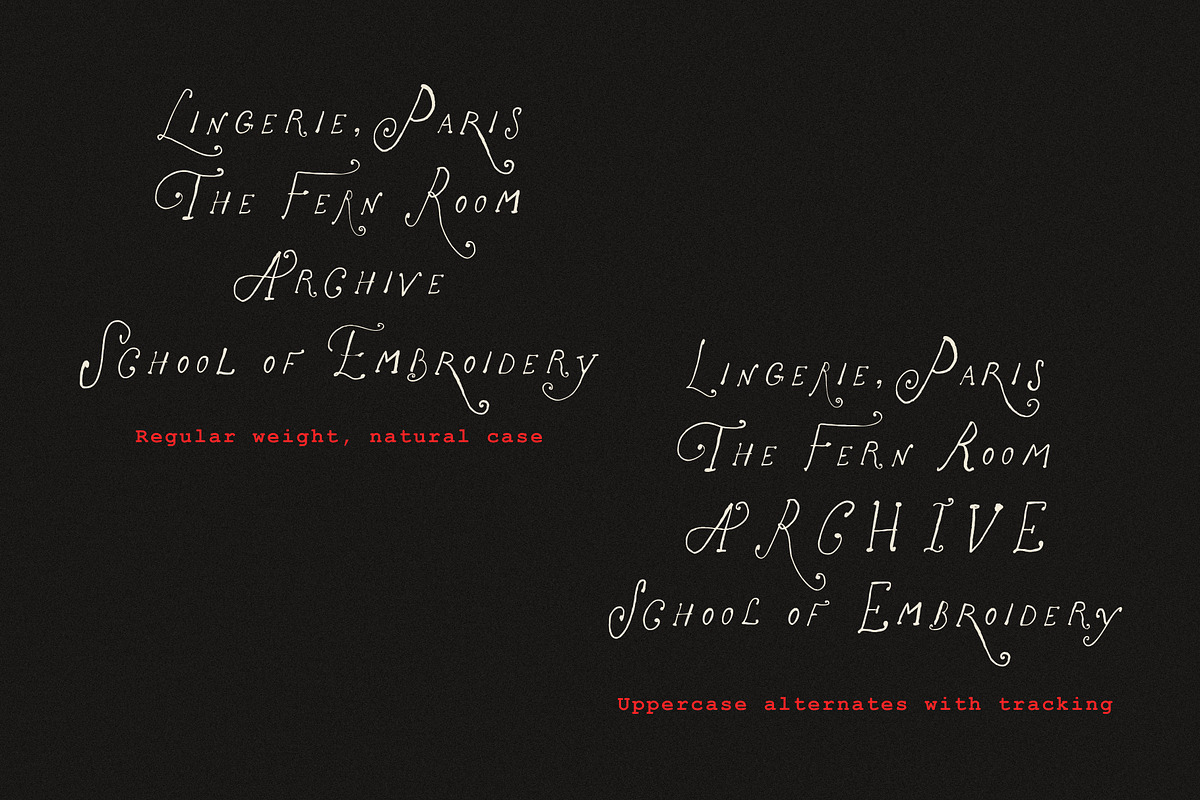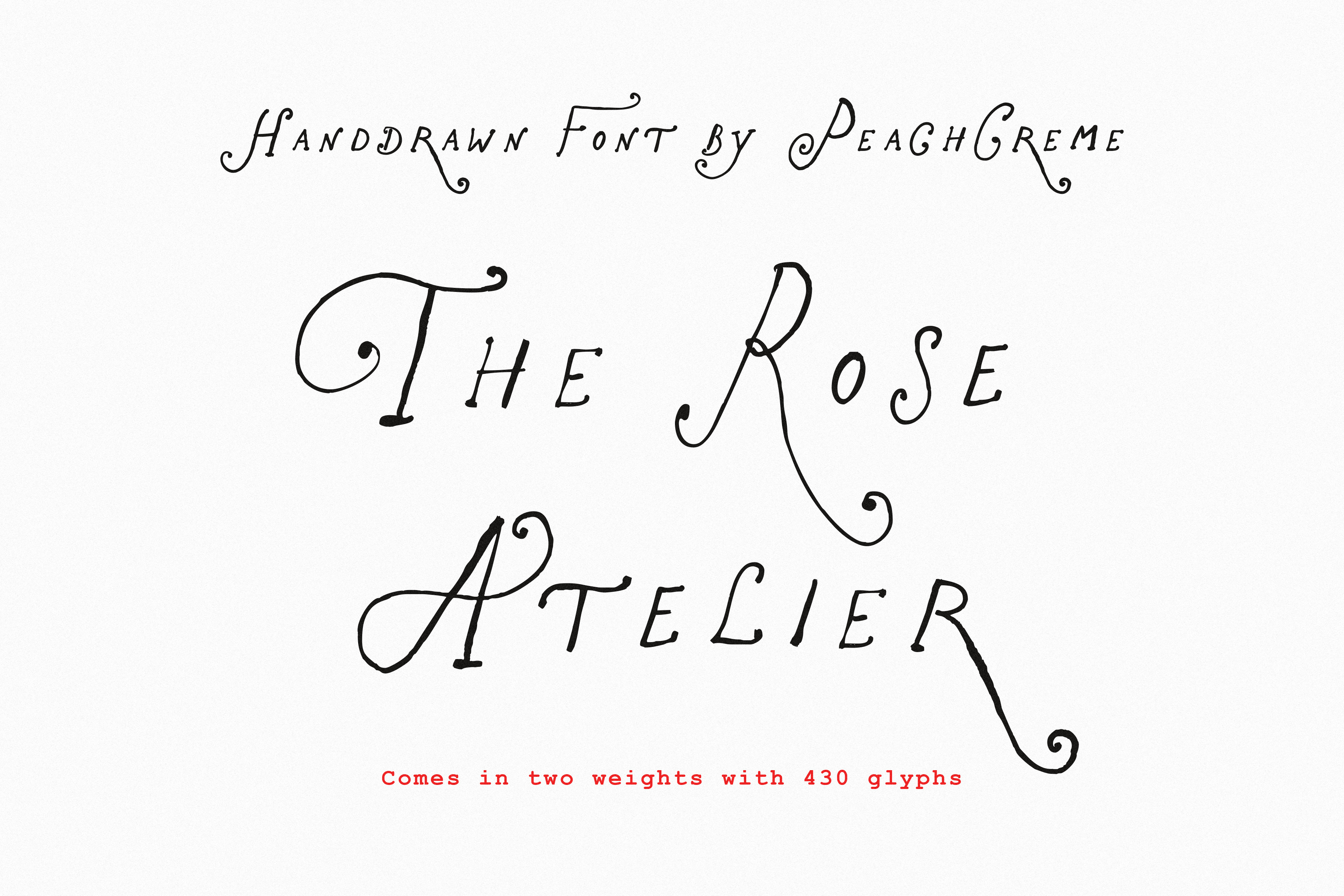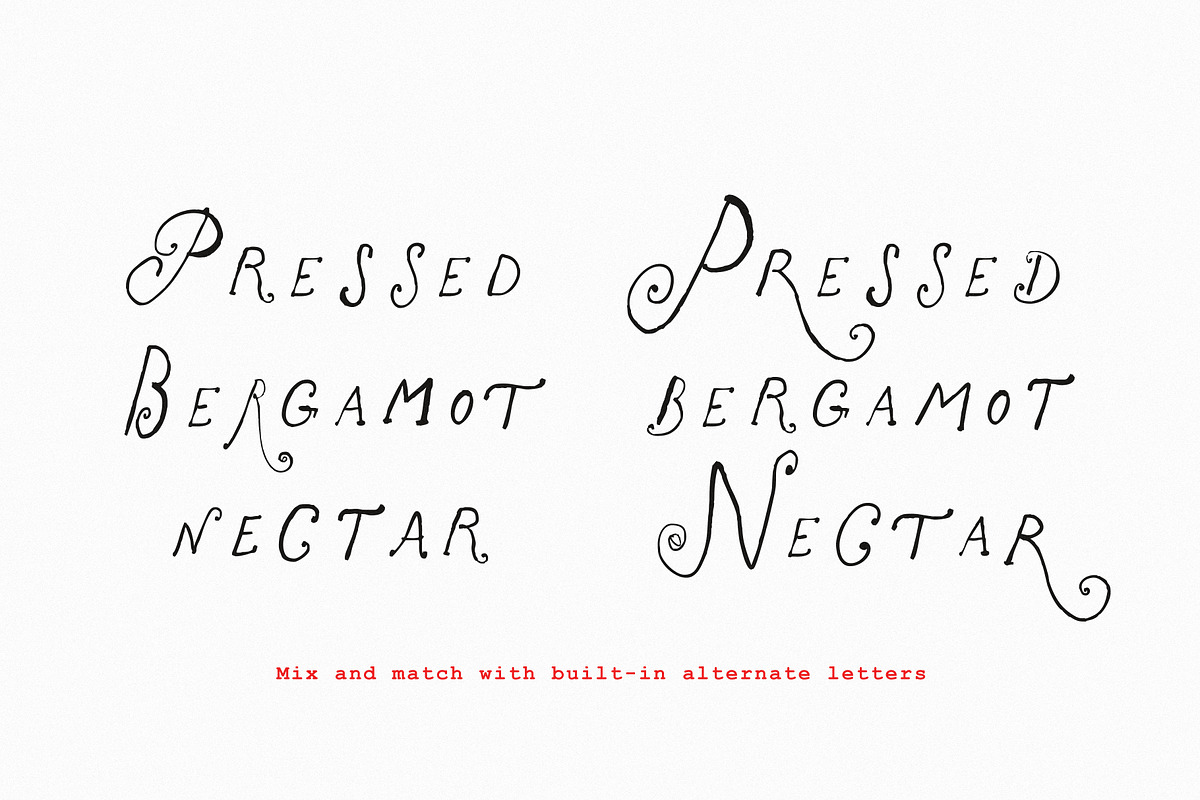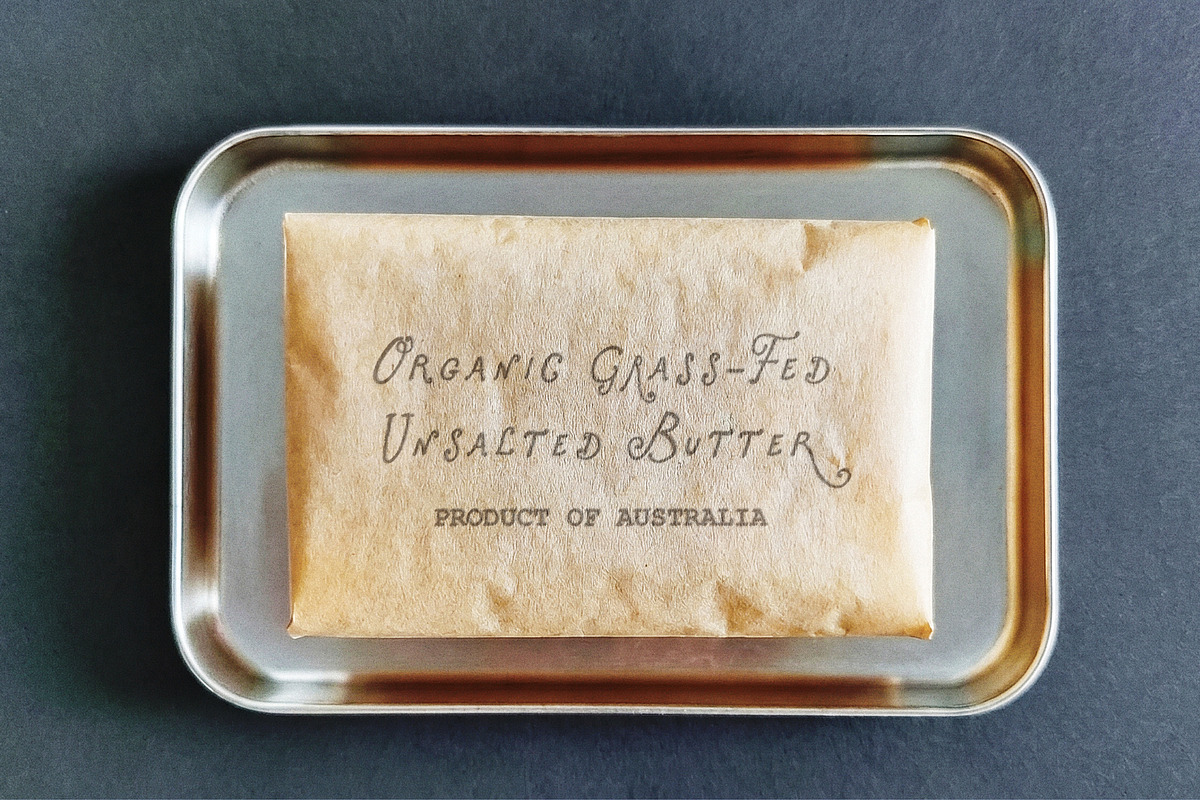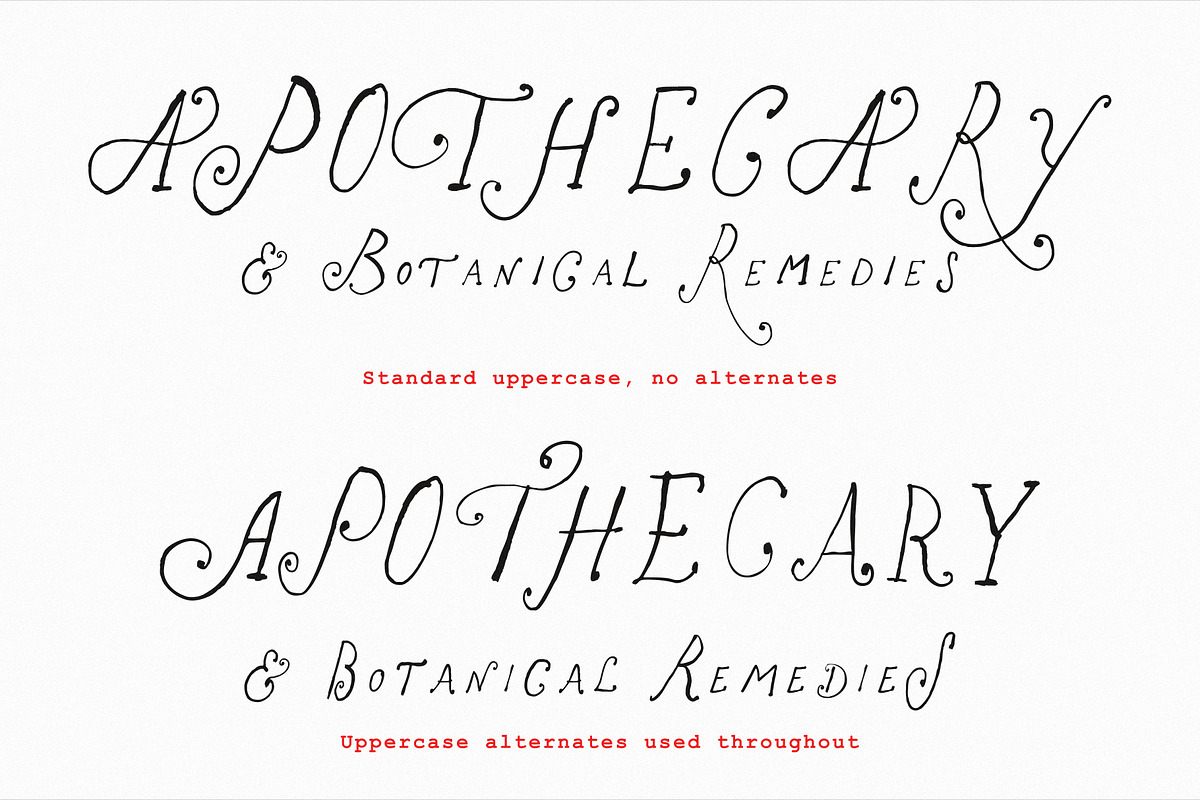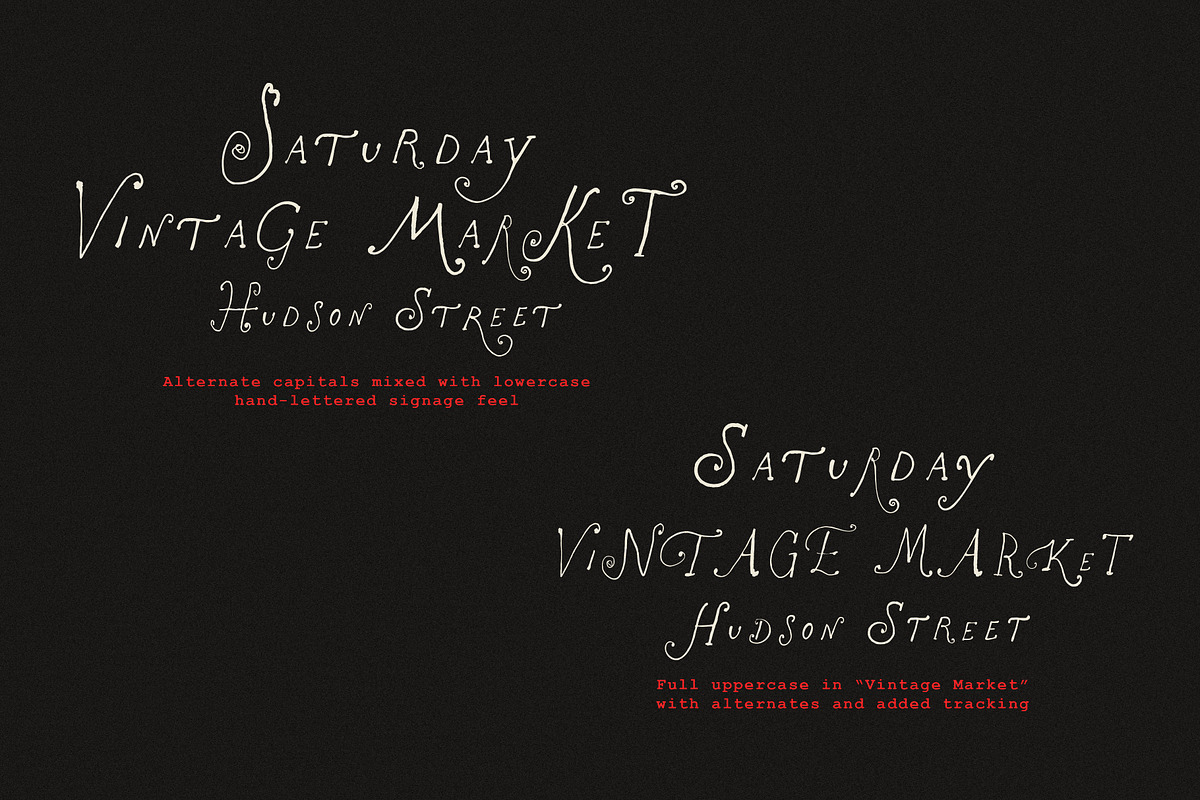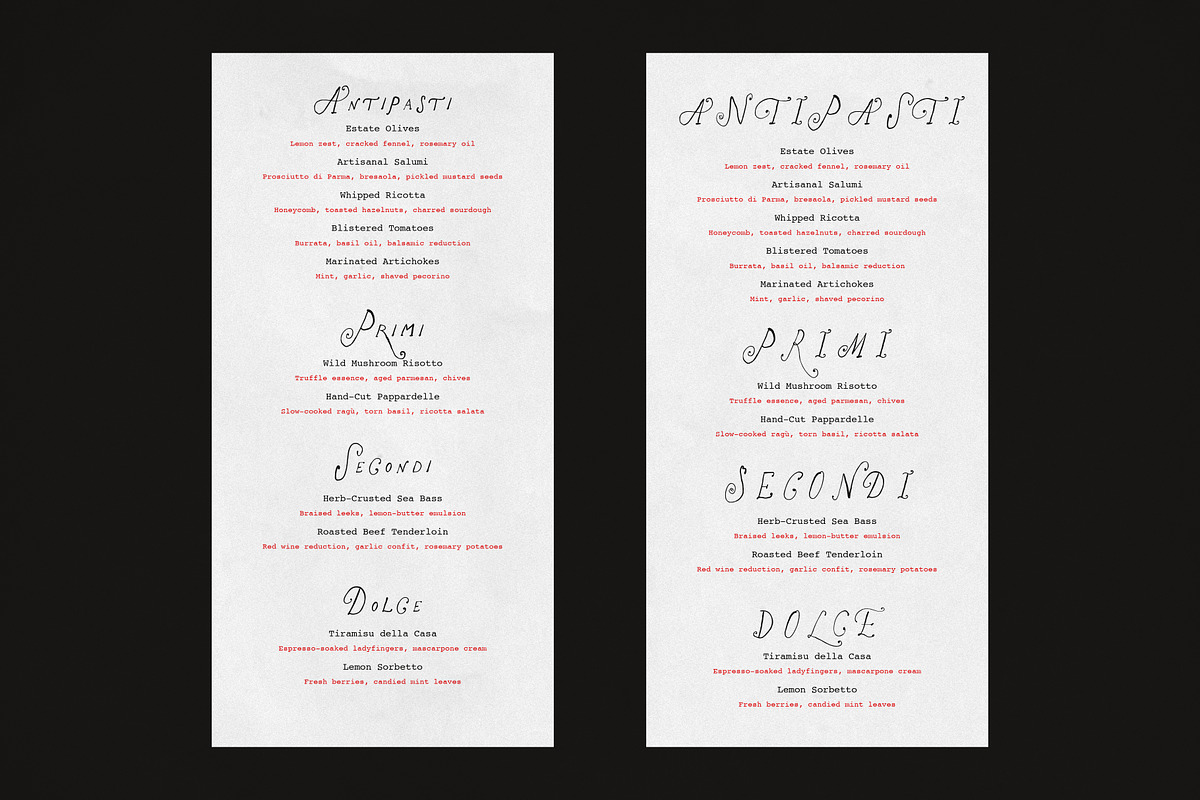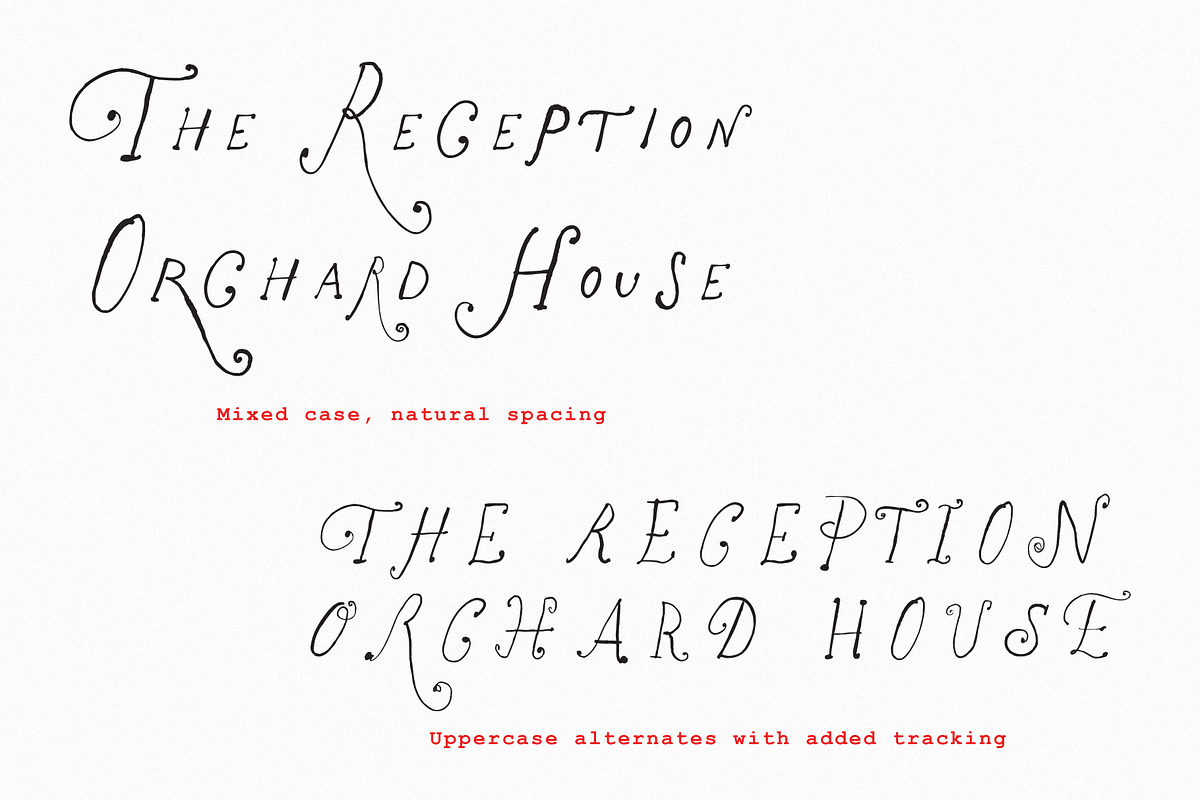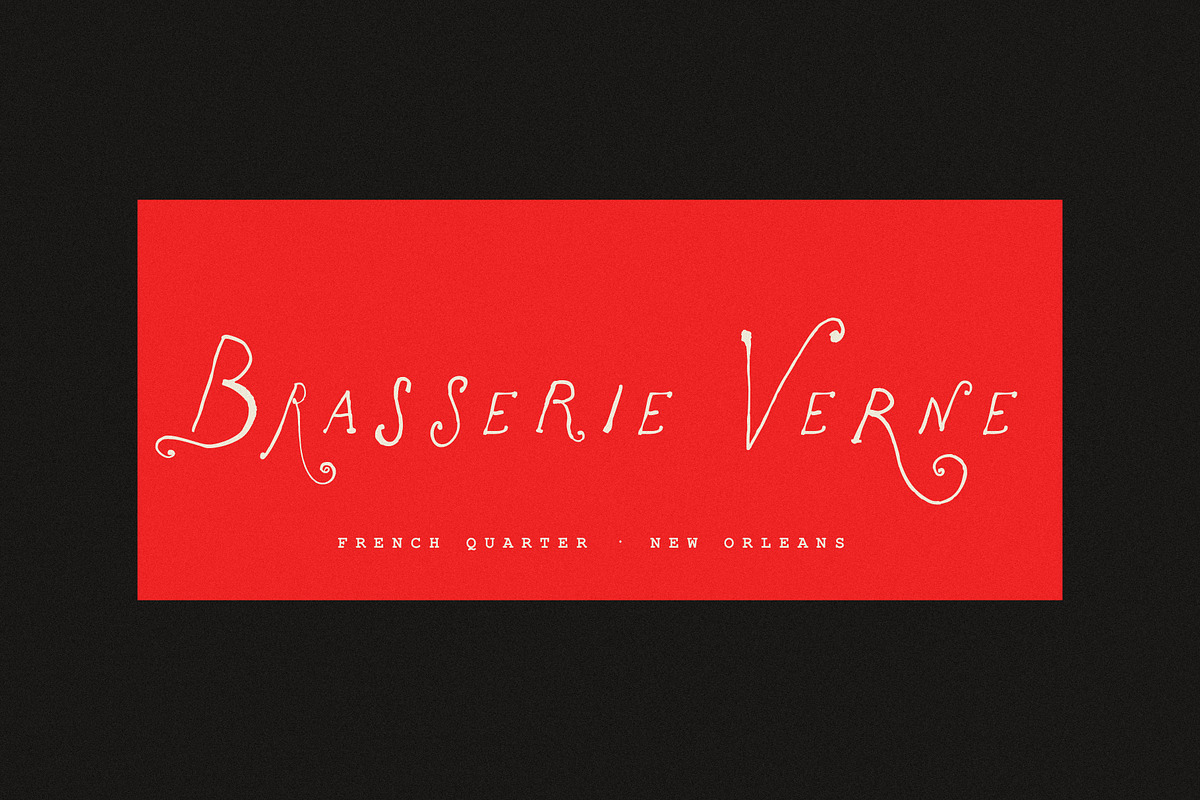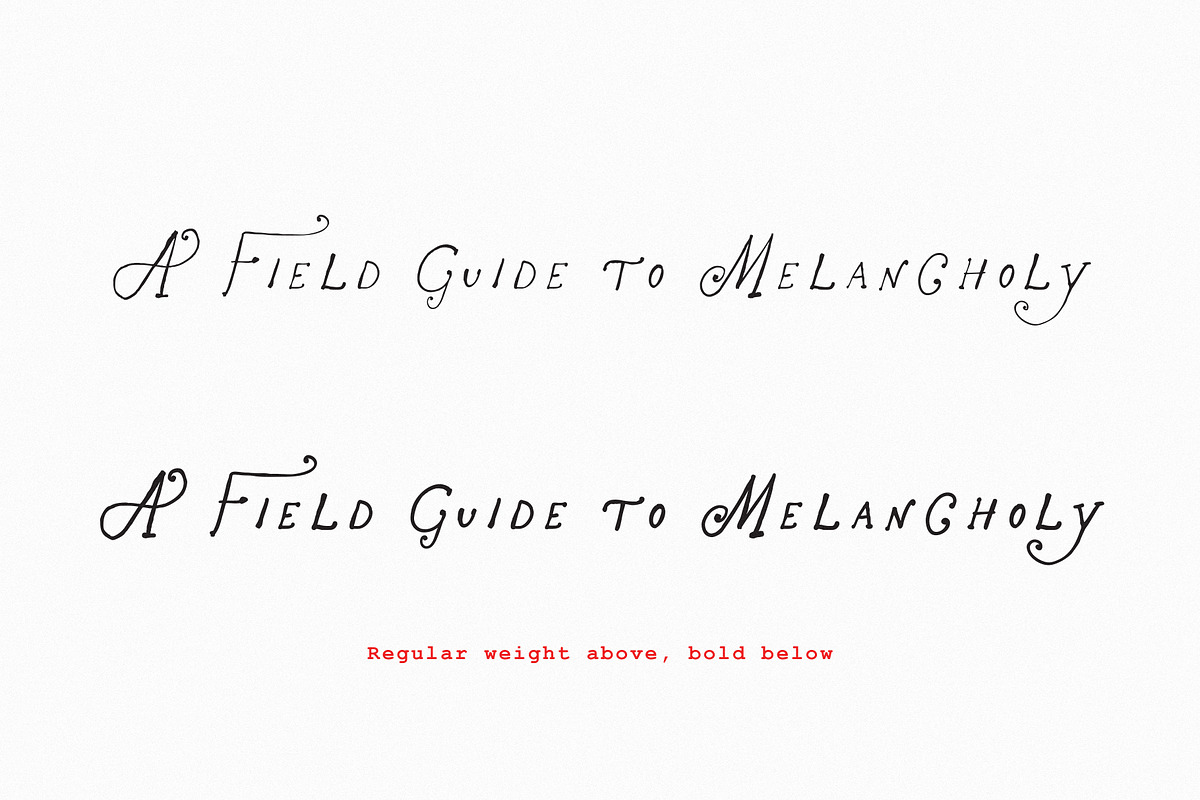
The Rose Atelier// Hand drawn Font
A delicate, hand-drawn display font with curly flourishes on the capitals. Comes with a second full alternate alphabet plus extra decorative variants for selected letters, so you can mix styles within the same word for a more handmade, less repetitive look.
Comes in Regular and Bold.
Stylistic Set 1 (ss01) — a complete alternate alphabet: all 26 uppercase letters, all 26 lowercase letters, and the full set of numbers 0–9 each have a second style. Use this set on its own for a different overall look, or mix with the default.
Stylistic Sets 2–5 (ss02 / ss03 / ss04 / ss05) — extra decorative variants for selected letters only (mostly uppercase, plus a few lowercase r and s). Coverage is uneven across these sets — please check the preview images to see exactly which letters have extras and what they look like before buying.